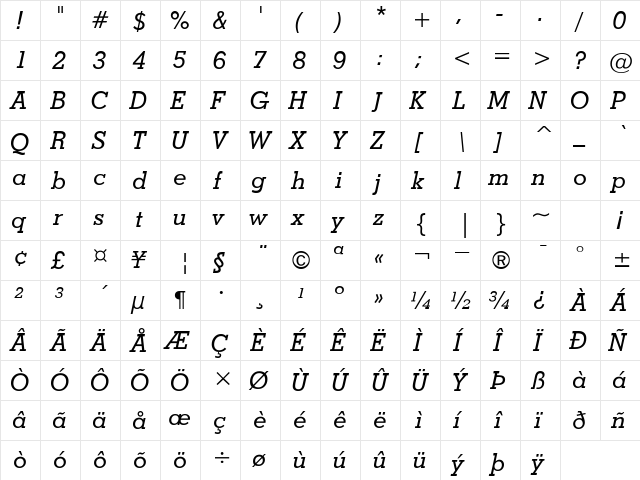
MayportSSK Italic
Design Context for MayportSSK Typeface
MayportSSK offers clean, dependable letterforms without strong stylistic allegiance, making it a practical choice for designers who need flexibility. The dynamic lean of this cut emphasises speed and emphasis in any layout.
Pro Tip: Try MayportSSK for annotation and caption copy alongside an upright companion — the contrast in angle creates a dynamic but ordered typographic system.